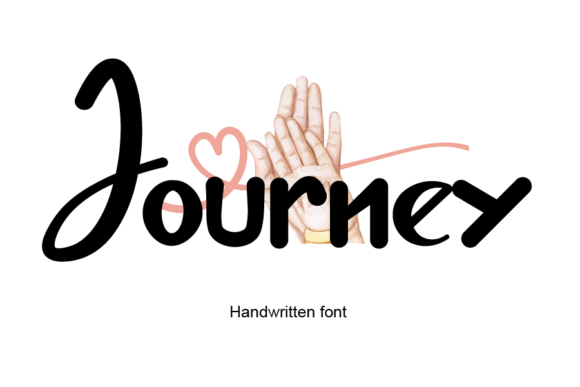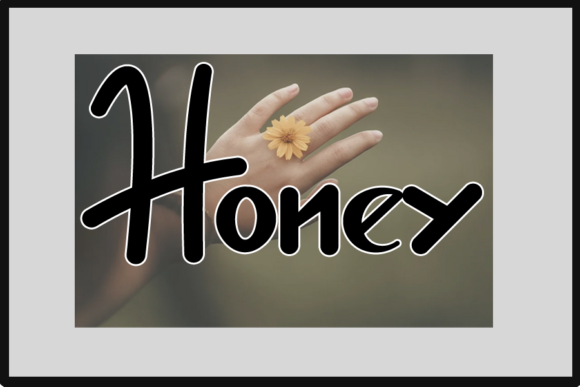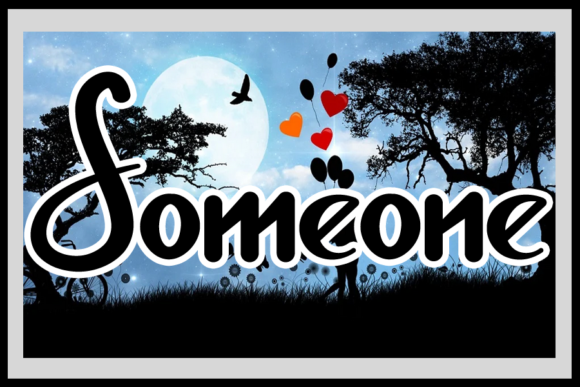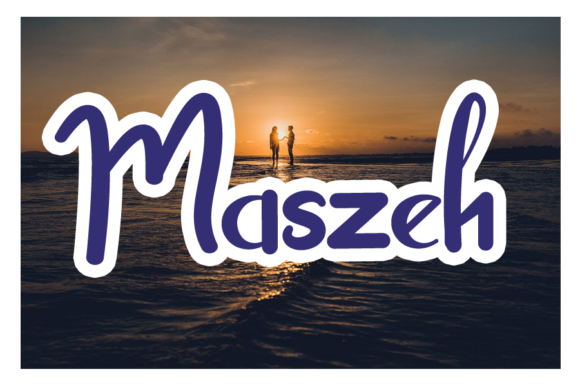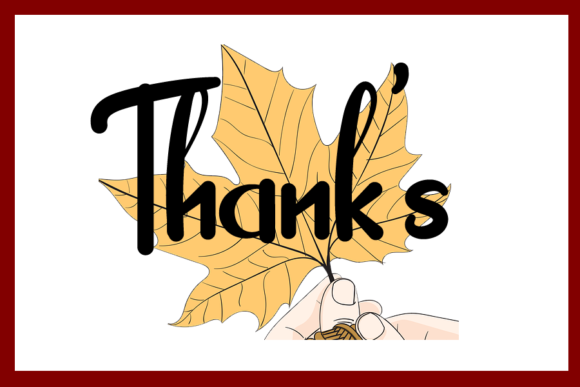
Journey Font
“Journey” is a delicate, elegant, and flowing handwritten font designed to bring a touch of beauty and sophistication to your creative projects. This typeface features beautiful and well-balanced characters, making it a versatile choice that complements a wide range of design styles. Incorporate “Journey” into your most creative ideas and observe how it breathes life into your designs.
The delicacy of “Journey” is evident in its graceful and flowing design. The font’s elegant strokes contribute to a sense of refinement, making it suitable for projects where a sophisticated and stylish aesthetic is desired. Whether used for invitations, branding, or other design applications, “Journey” adds a touch of class.
The flowing nature of “Journey” ensures that it adapts well to different design contexts, providing a harmonious and visually appealing look. Its versatility allows it to enhance a variety of projects, from elegant invitations to stylish branding materials.
As you add “Journey” to your creative toolkit, you’ll discover its ability to elevate your designs, giving them a timeless and elegant quality. The font becomes a valuable asset for expressing creativity with a touch of sophistication.
In summary, “Journey” is more than just a font; it’s a delicate and elegant handwritten typeface that brings a sense of beauty to your designs. Whether used for invitations, branding, or other creative endeavors, let “Journey” be the font that makes your projects come alive with grace and style, turning each piece into a masterpiece of design.